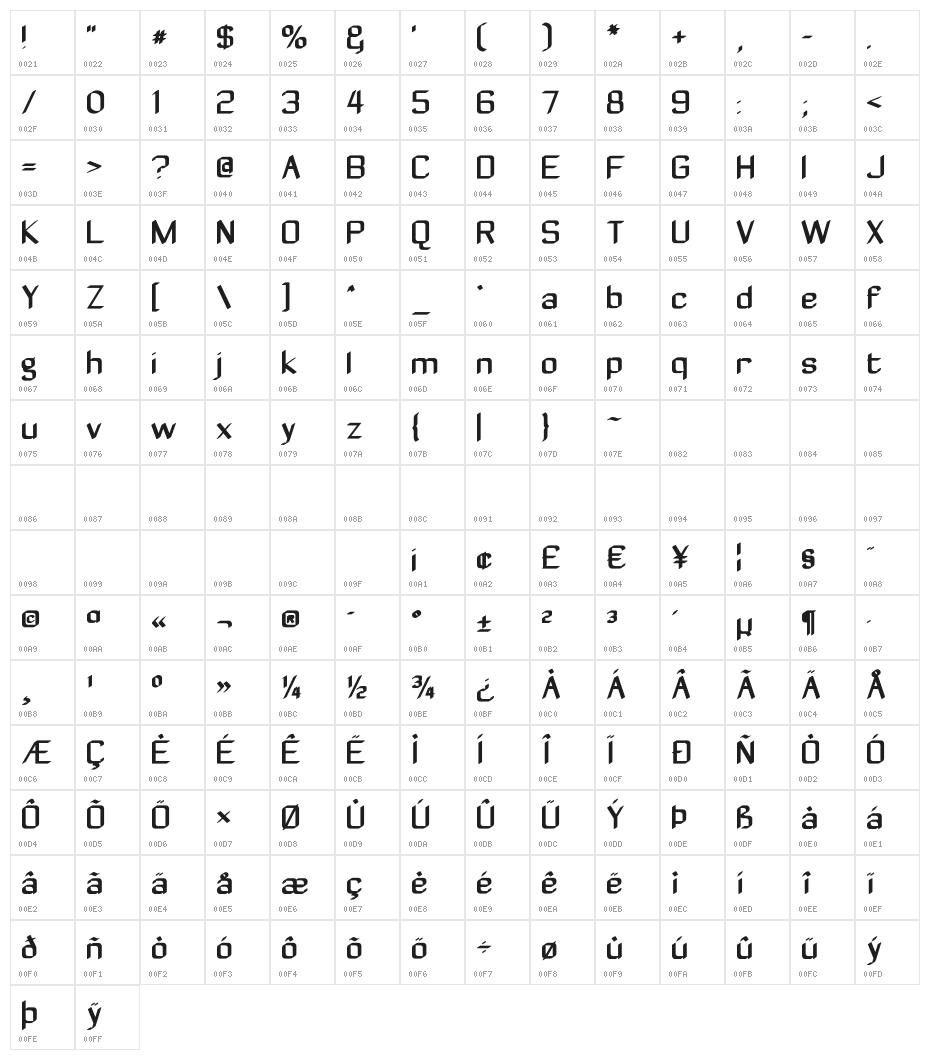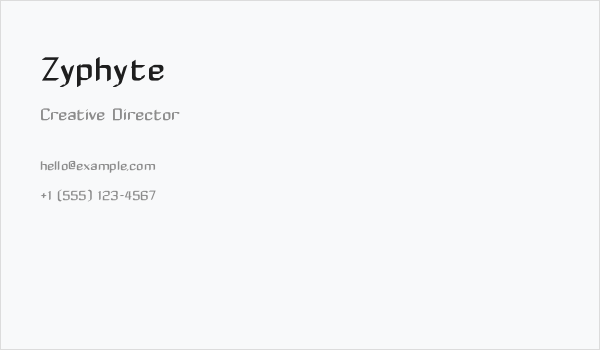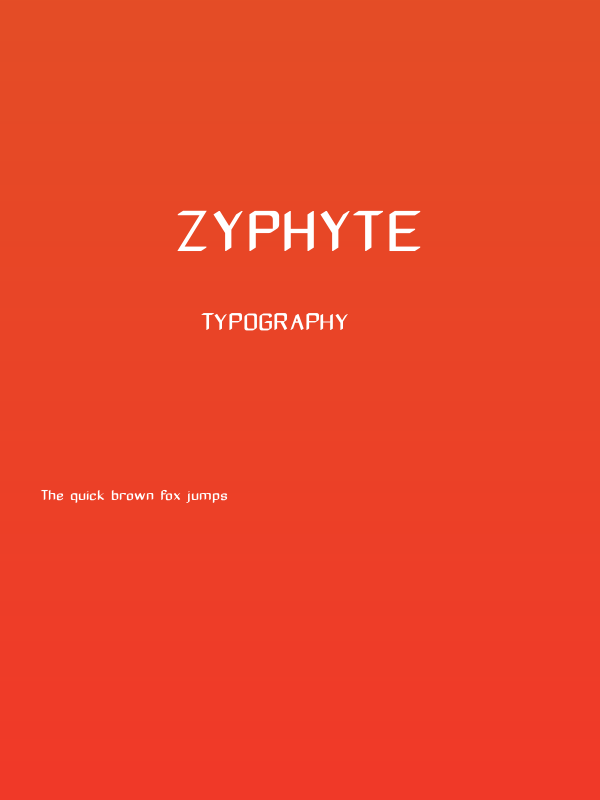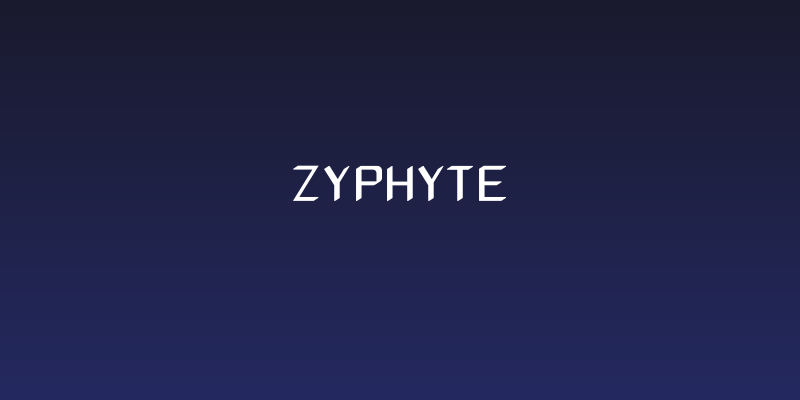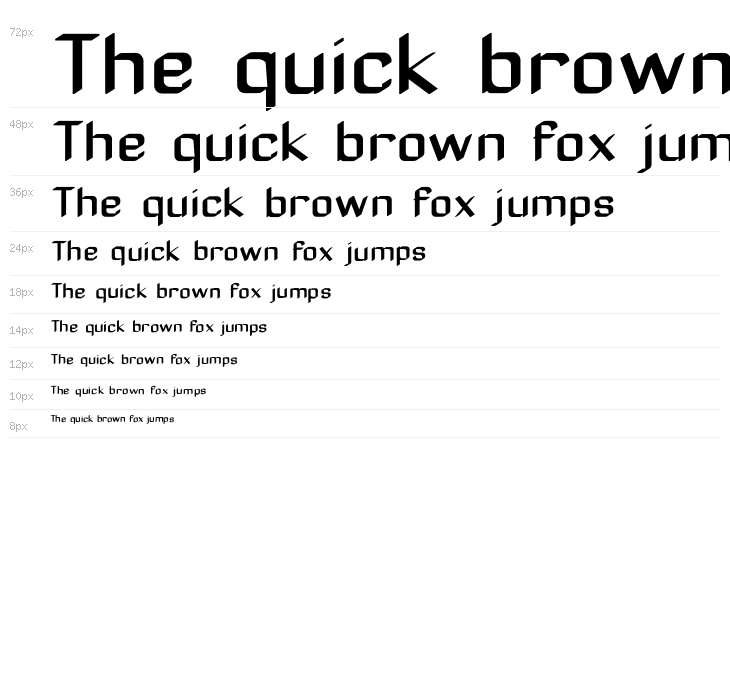
Zyphyte Font
Zyphyte Description
This font features a modern, geometric design with sharp angles and clean lines. The uppercase letters are bold and structured, giving a sense of strength and stability. The lowercase letters maintain the geometric theme but with a slightly softer touch, providing a nice contrast to the uppercase. Numbers are consistent with the overall style, offering clarity and precision. Special characters are uniquely designed to match the font's aesthetic, making them stand out while remaining cohesive. The font's overall appearance is sleek and futuristic, suitable for a variety of design applications.
| Overall Style | Modern, Futuristic |
| Use Case | Headlines, Logos, Digital Interfaces |
| Proposed Projects | Ideal for technology branding, modern advertising, futuristic posters, and digital interfaces. |